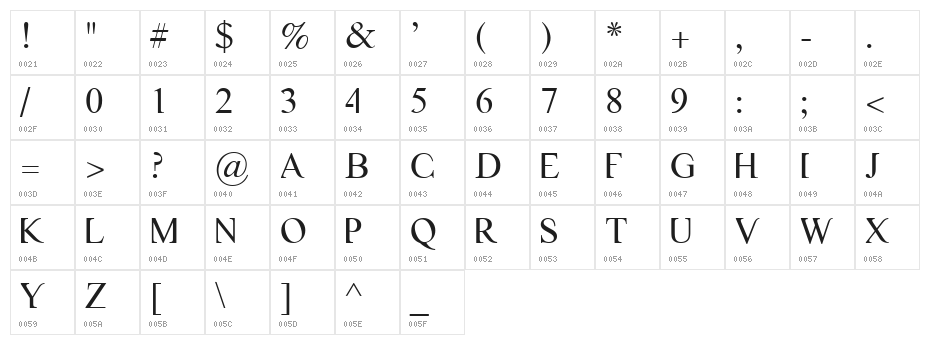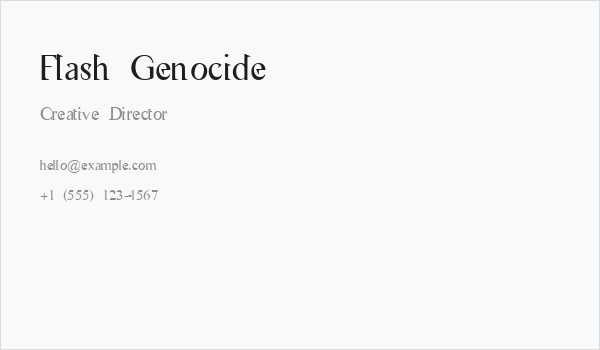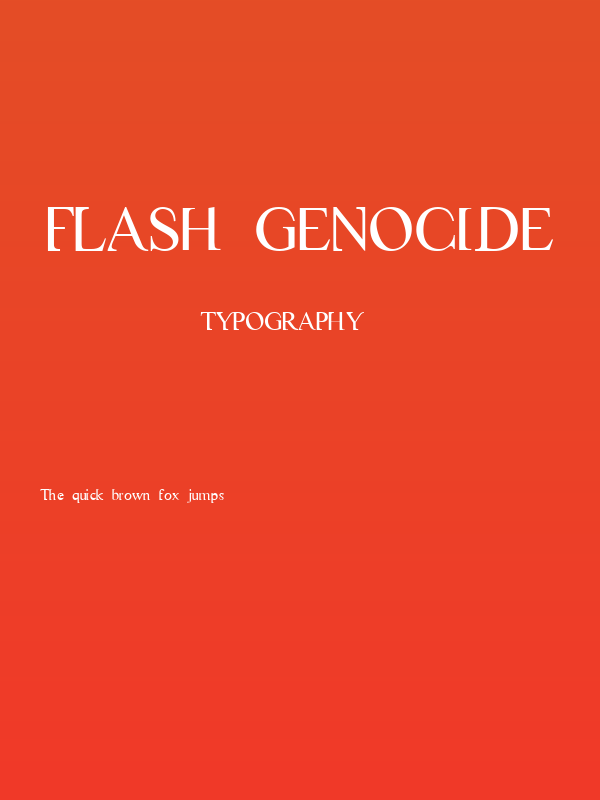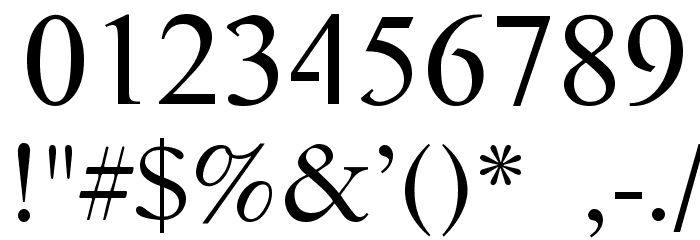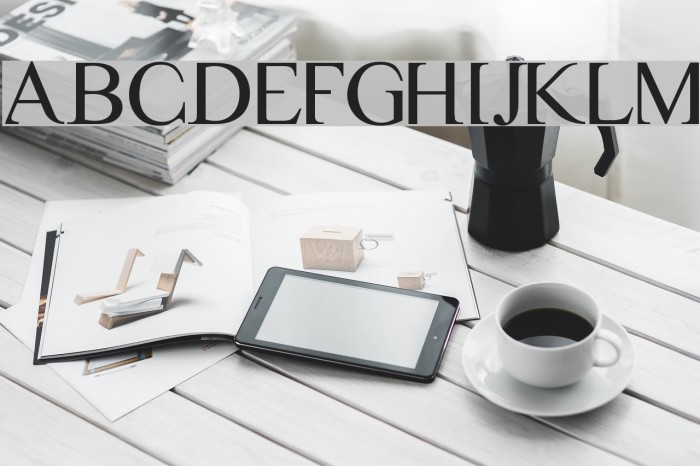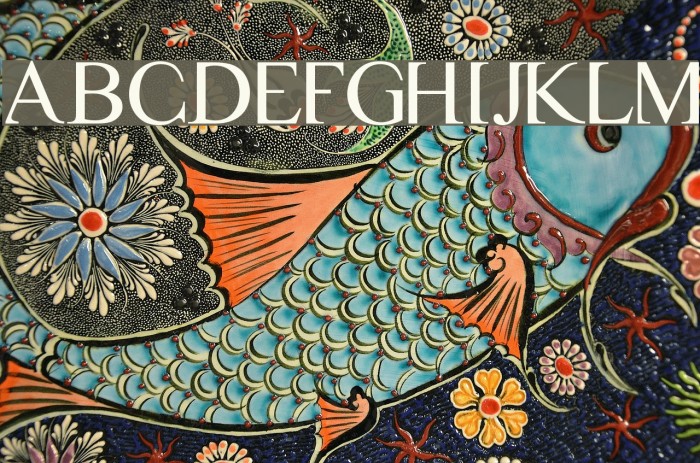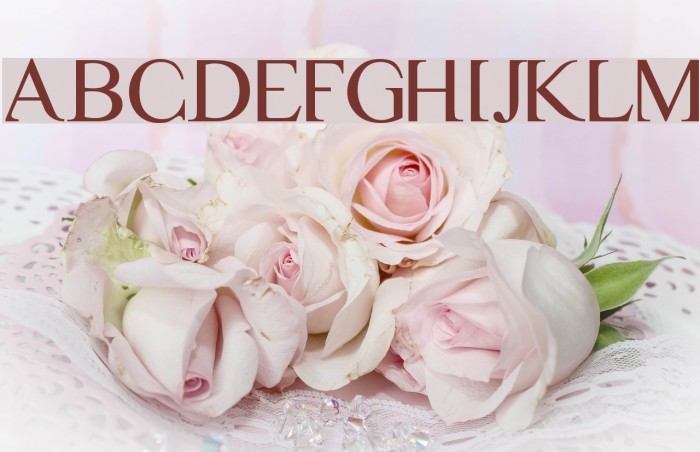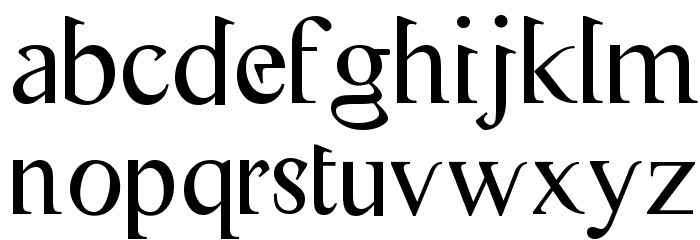
Flash Genocide Font
Flash Genocide Description
This font exhibits a classic serif style with a modern twist. The uppercase letters are elegantly structured with sharp serifs, providing a sense of sophistication and authority. The lowercase letters maintain a consistent style, offering a harmonious blend of curves and angles that enhance readability. The numerals are distinct and clear, making them suitable for both formal and casual contexts. Special characters are well-defined, ensuring versatility in various applications. The overall design is balanced, with a medium contrast in stroke thickness that adds to its legibility and aesthetic appeal.
FLASH-GENOCIDE UPPERCASE
FLASH-GENOCIDE LOWERCASE
FLASH-GENOCIDE OTHER CHARS
| Proposed Projects | This font is perfect for editorial design, book covers, branding projects, and formal invitations. |